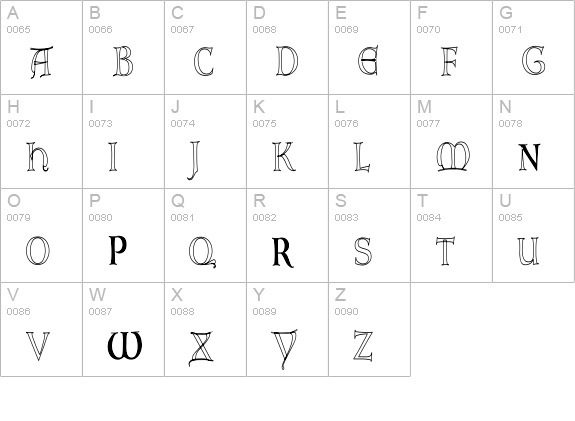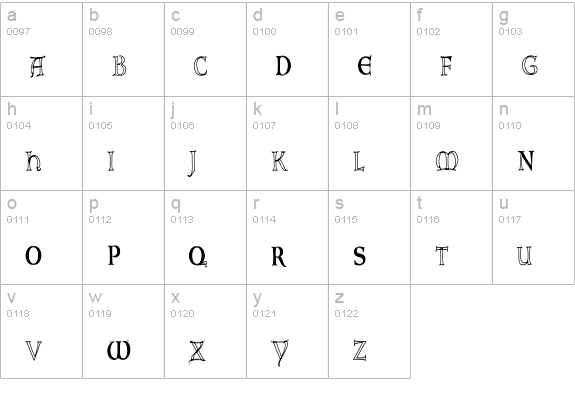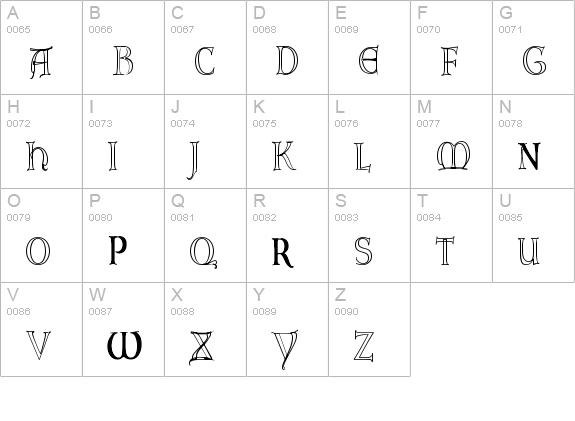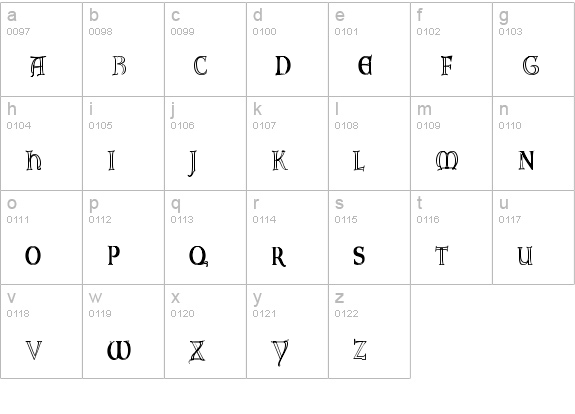
Lombardic-NormaHC Font Details
Lombardic-NormaHC font is a stunning display typeface that exudes elegance and sophistication. Its intricate Lombardic-inspired letterforms are beautifully crafted with intricate details and fine lines, making it perfect for adding a touch of luxury to your projects. The font's unique design is sure to make a statement and capture the attention of your audience. Best of all, Lombardic-NormaHC font is completely free to download at FontsMarket.com. This means you can easily access this exquisite typeface and incorporate it into your designs without any cost. Whether you're working on branding, invitations, posters, or any other project that calls for a touch of refinement, Lombardic-NormaHC font is a fantastic choice that will elevate your work to the next level. Download it today and see the difference it can make in your designs!